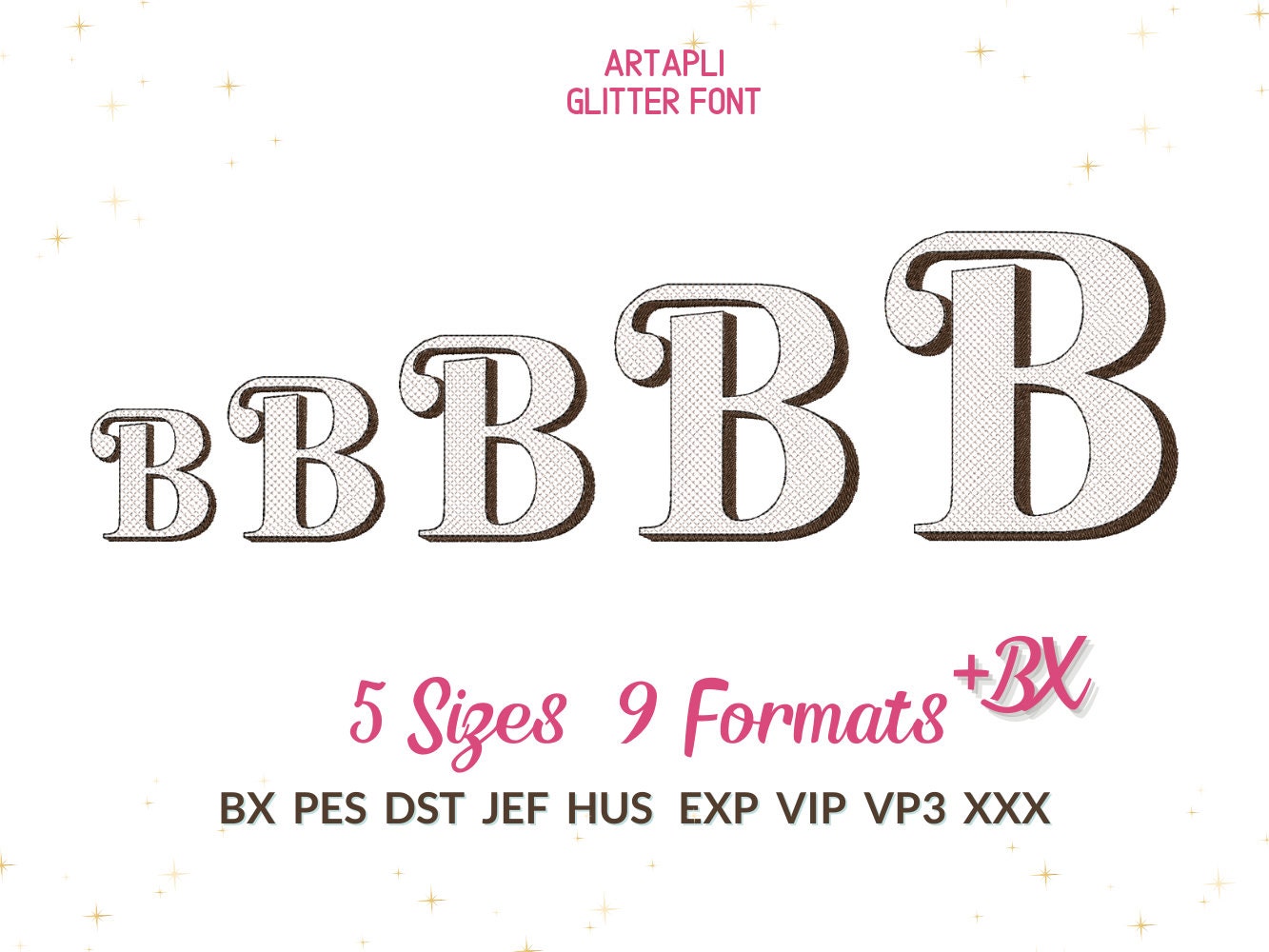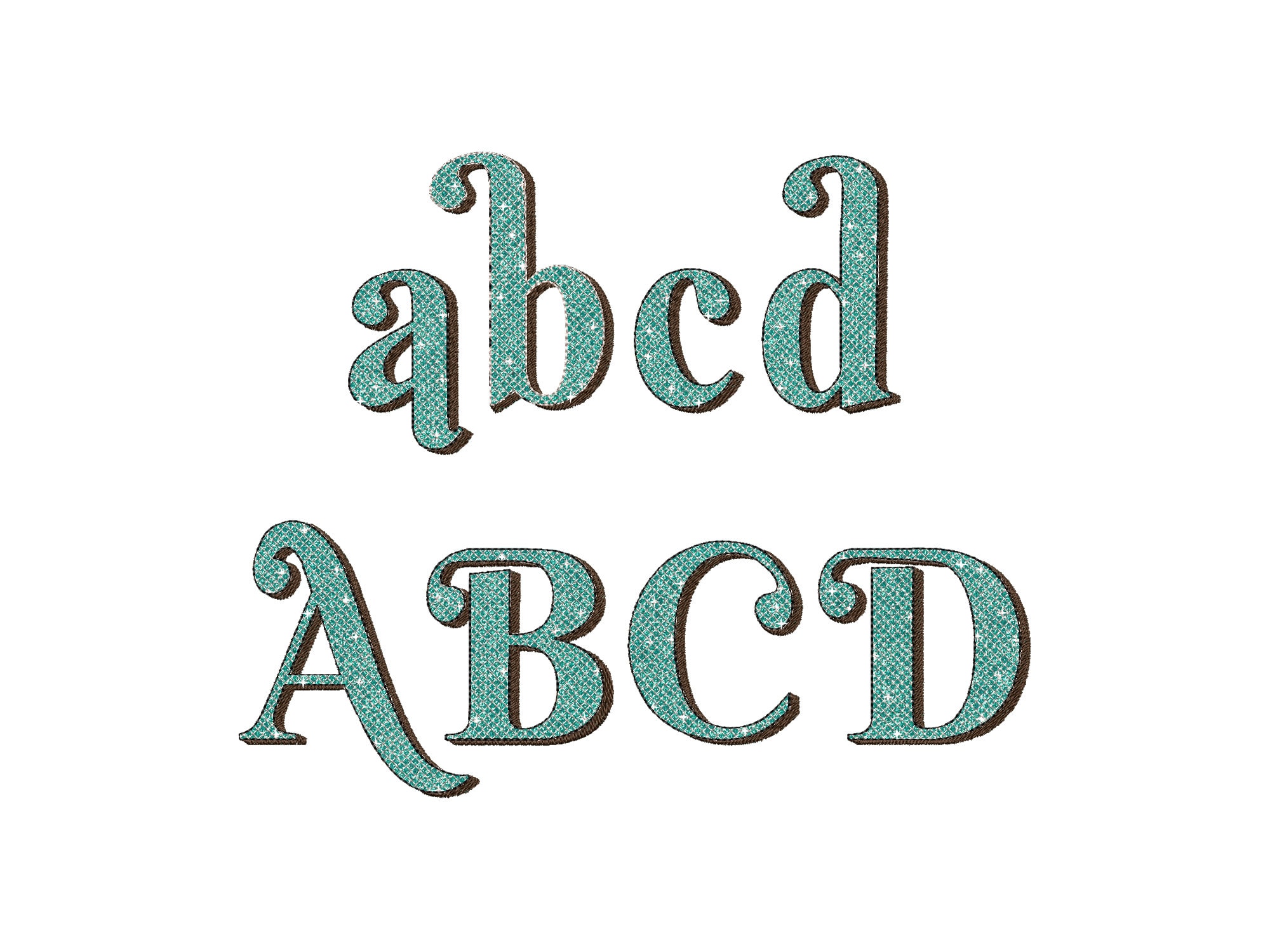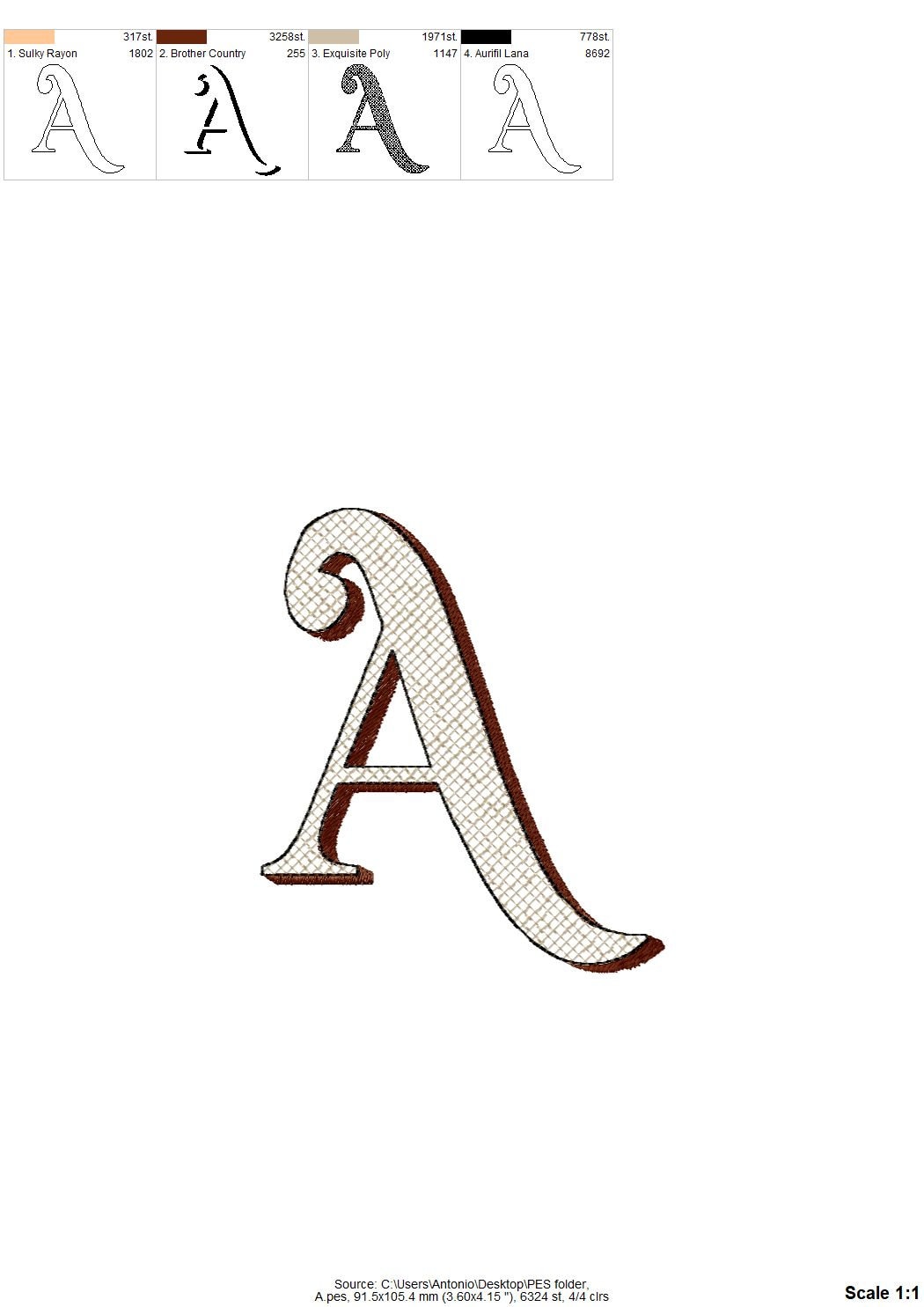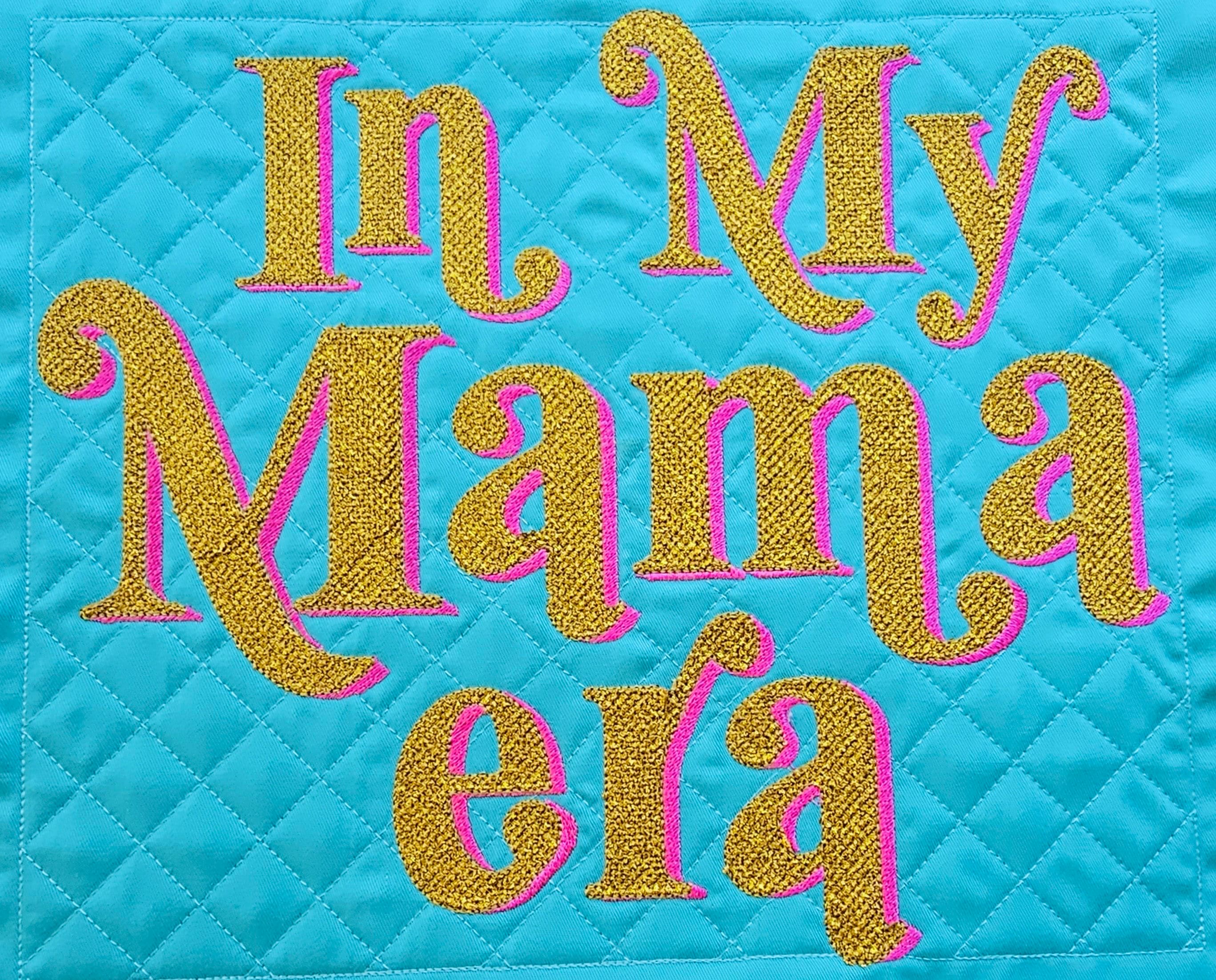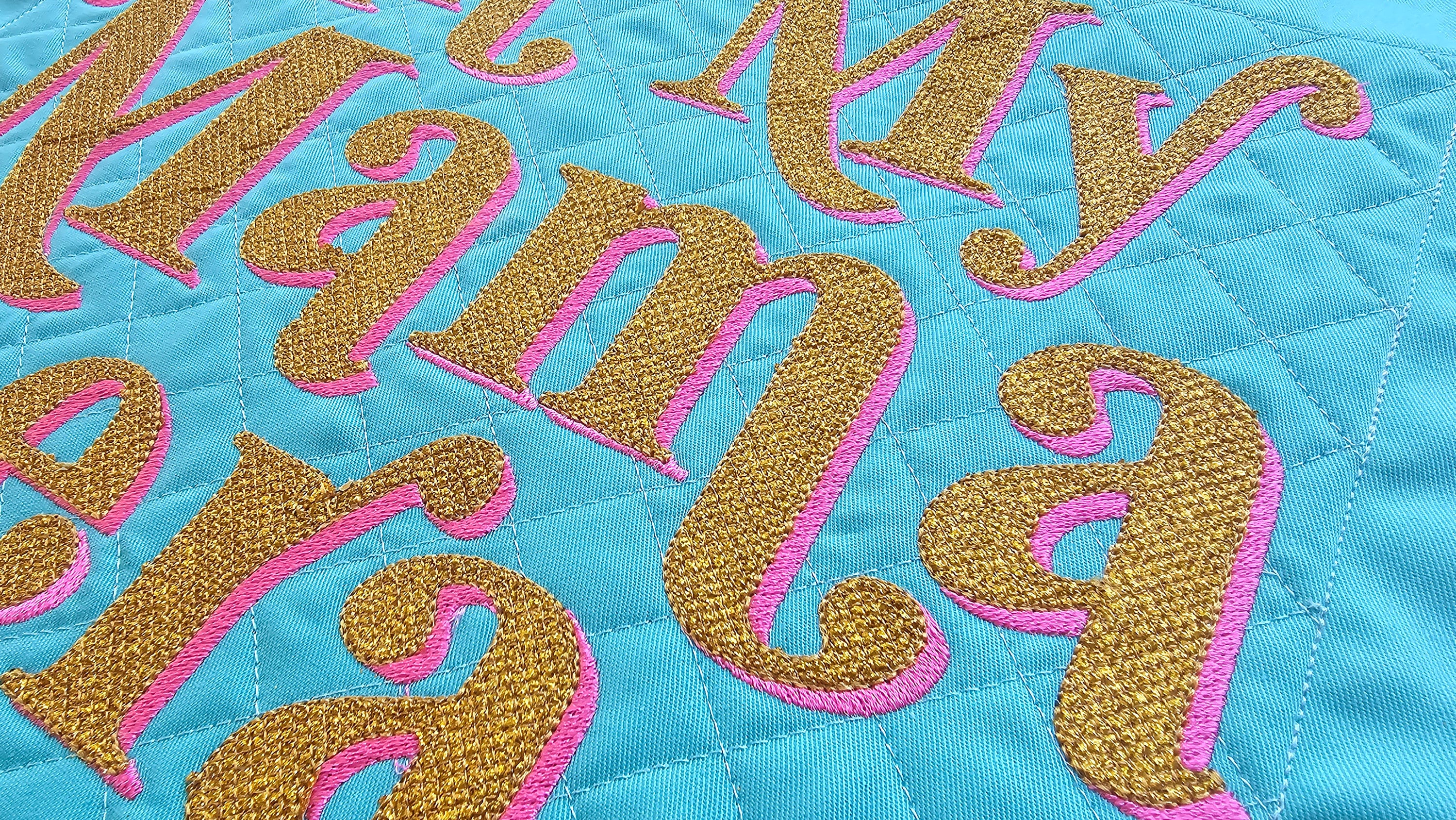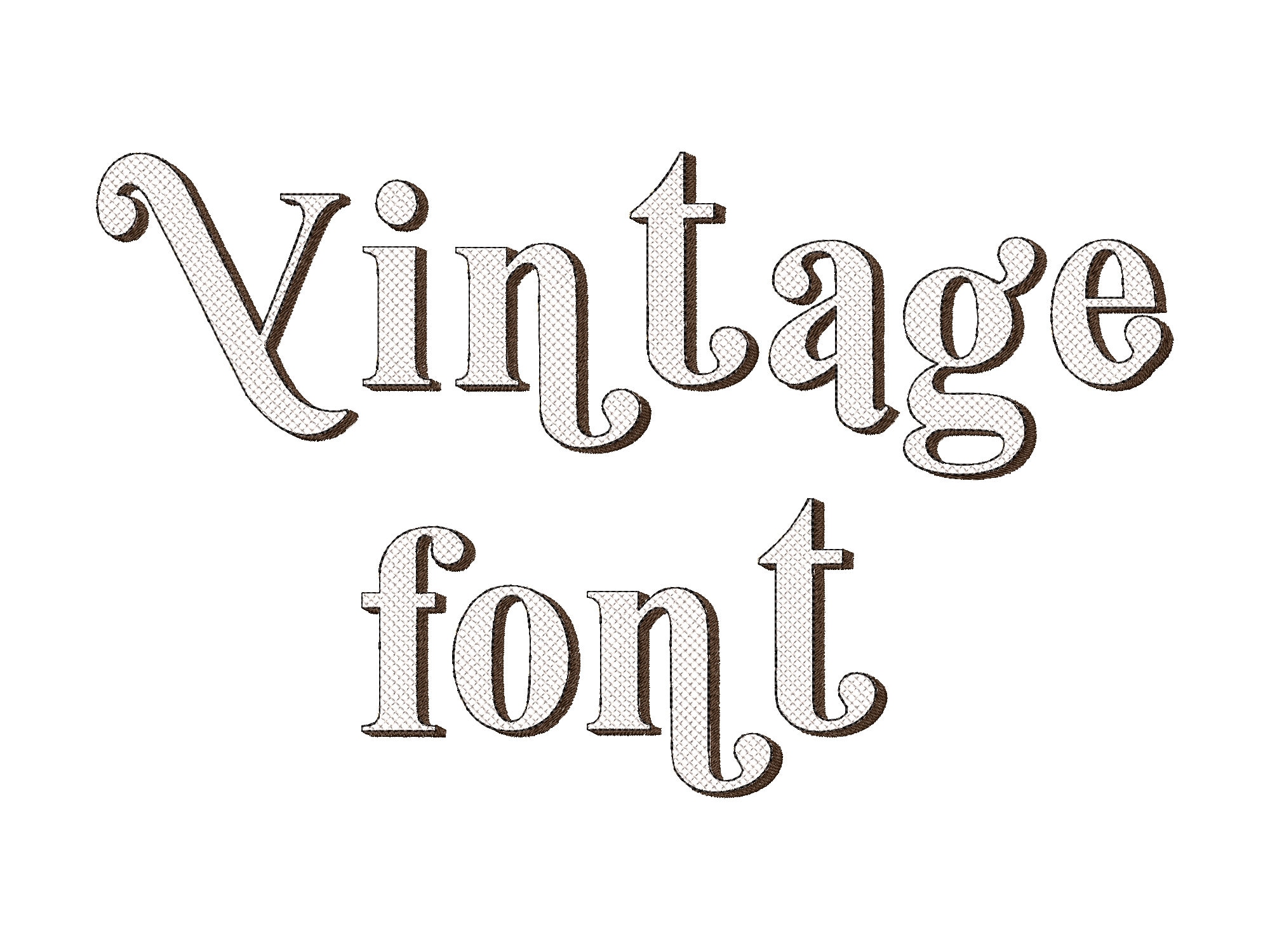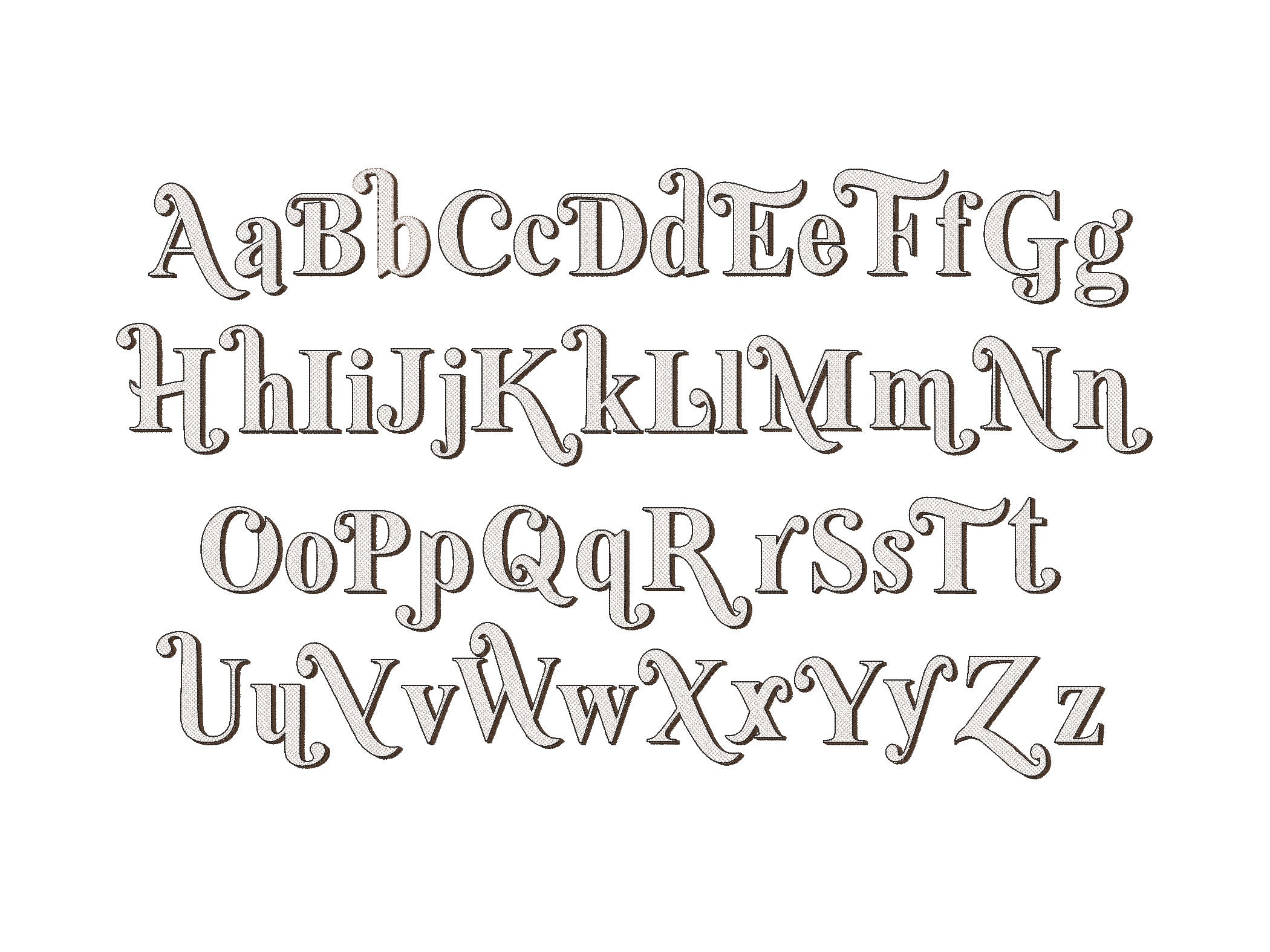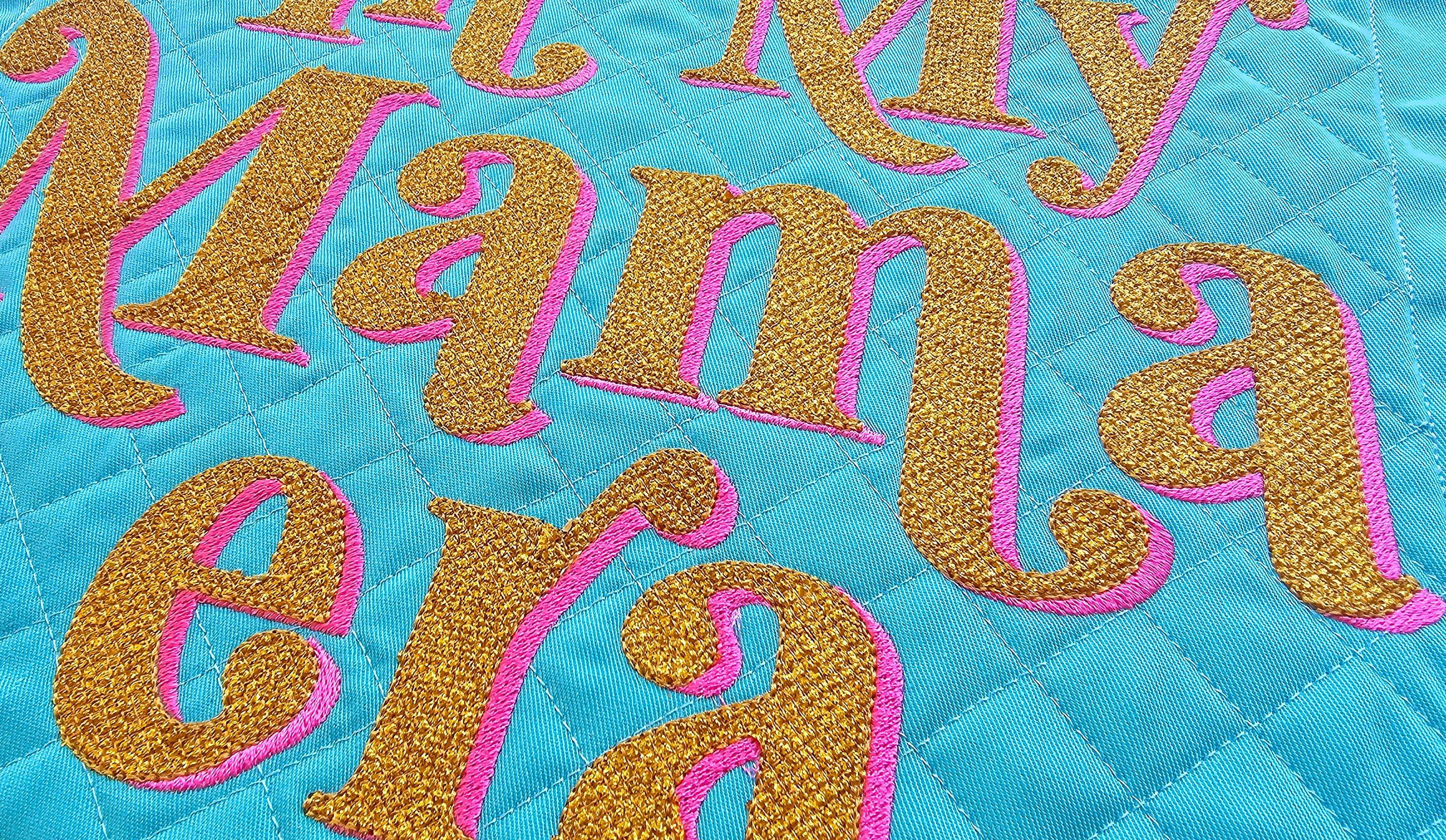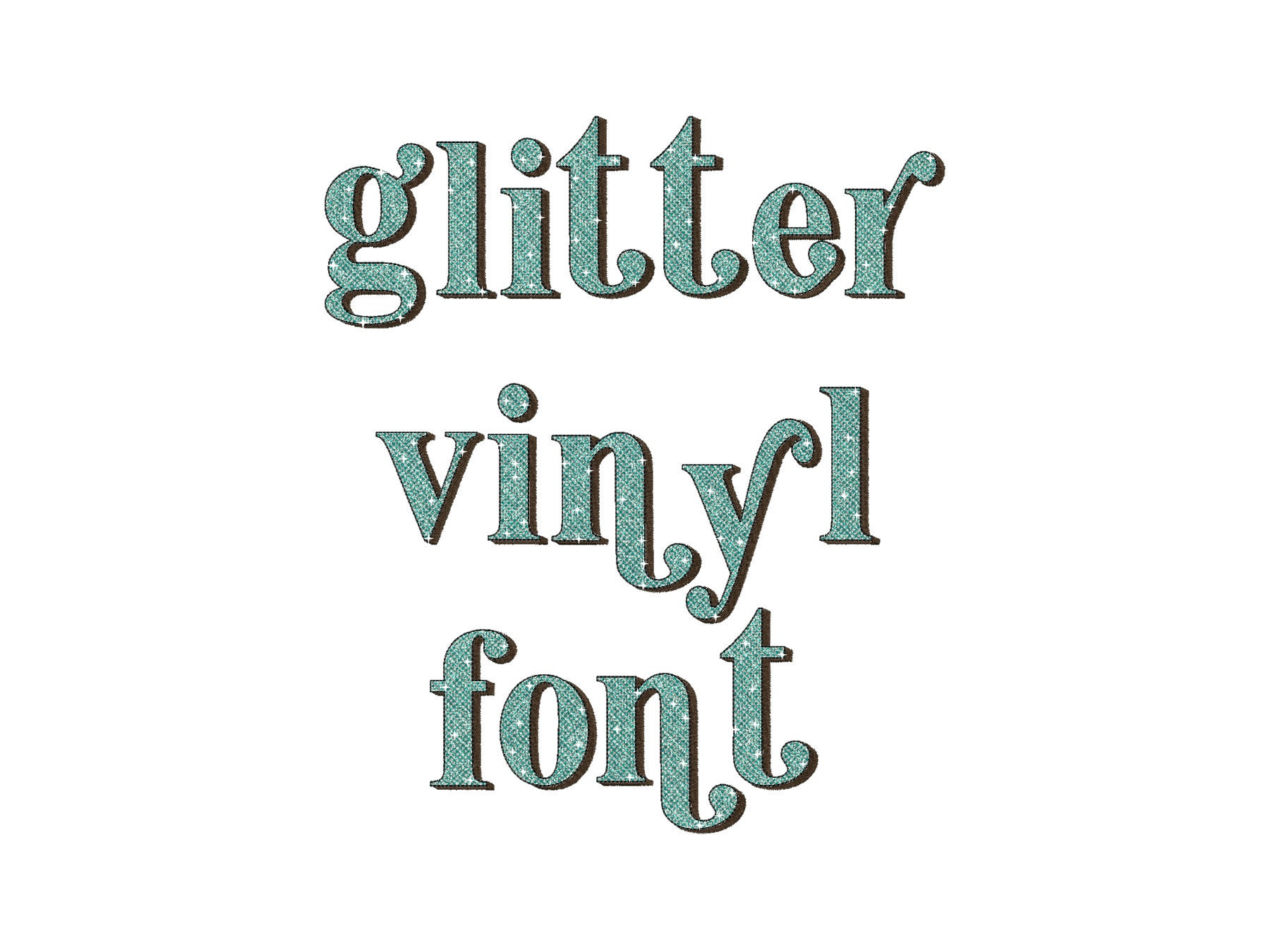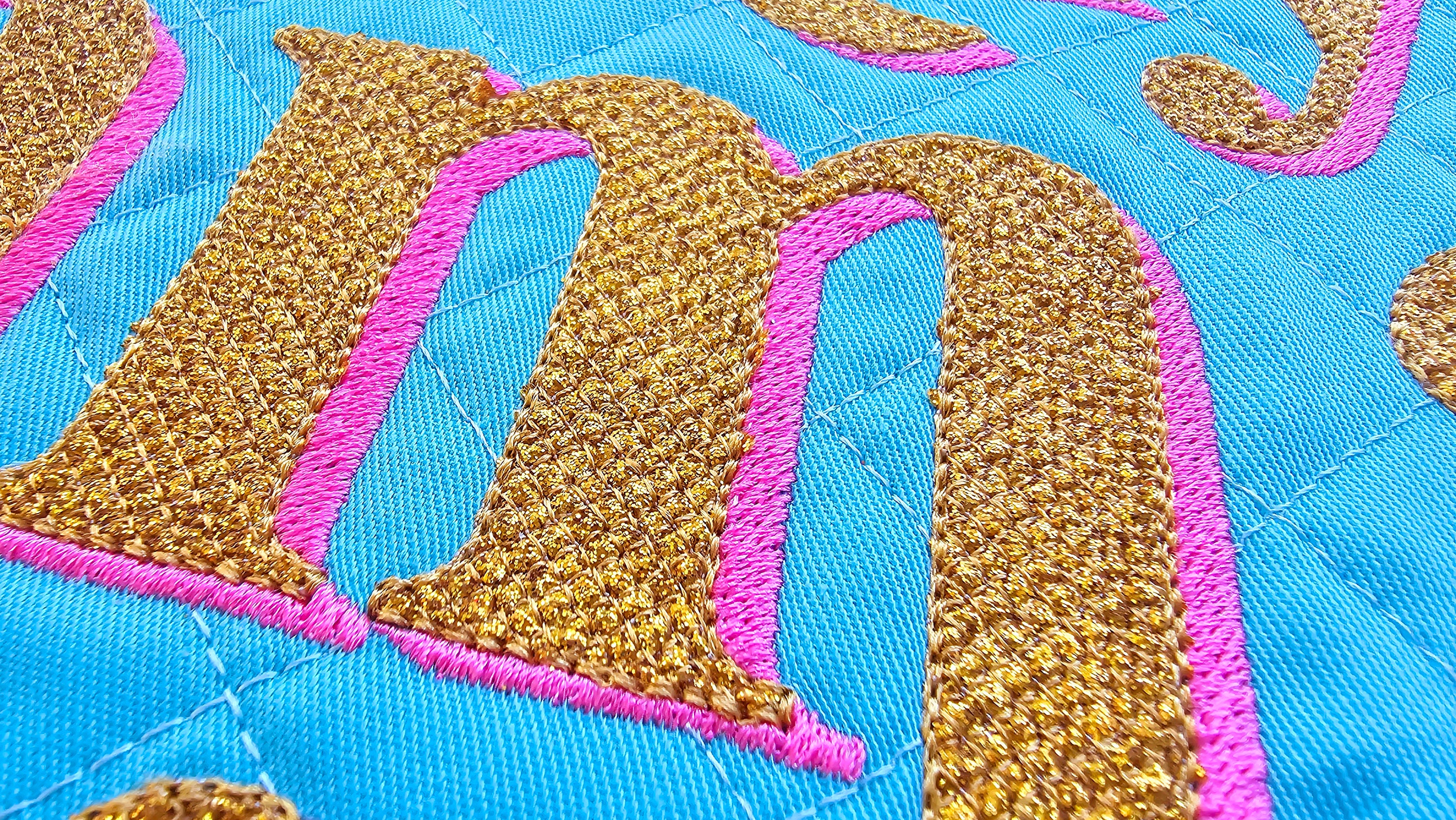
Vintage Glitter Font HTV glitter vinyl monogram sparkling Retro alphabet letters machine embroidery designs sizes 1.8 up to 4.4 inches, BX
Entire alphabet uppercase A-Z and lowercase a-z.
This stitches out very well!